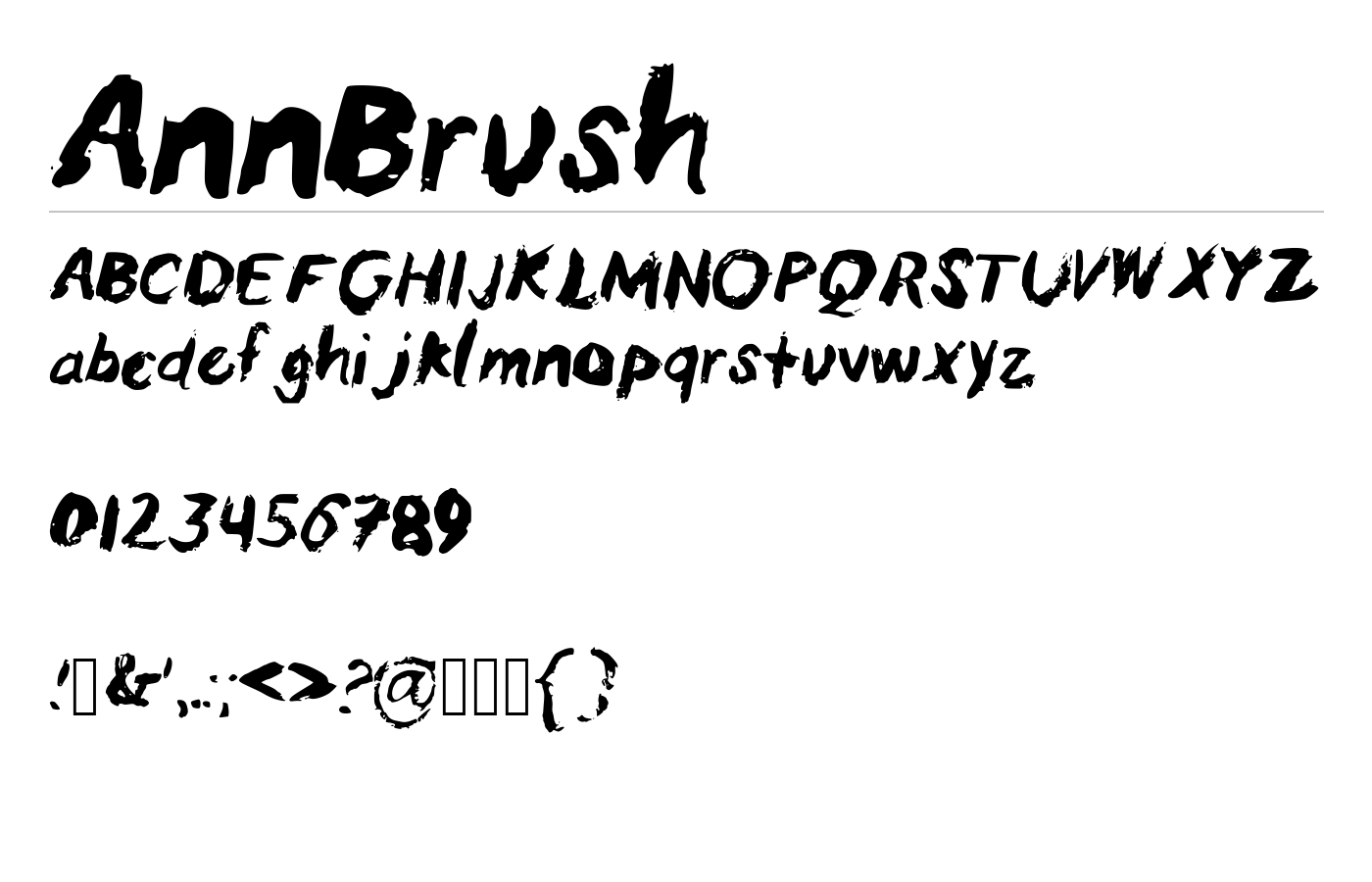
AnnBrush is a bold, expressive brush script font with a textured, hand-painted feel that adds a sense of energy and creativity. Its irregular strokes and rough edges give it an organic, artistic vibe, making it perfect for designs that seek a dynamic, casual, and creative appearance. This font works especially well for logos, posters, and packaging that want to communicate a youthful, artistic, or handcrafted personality.
AnnBrush Font
About AnnBrush Font